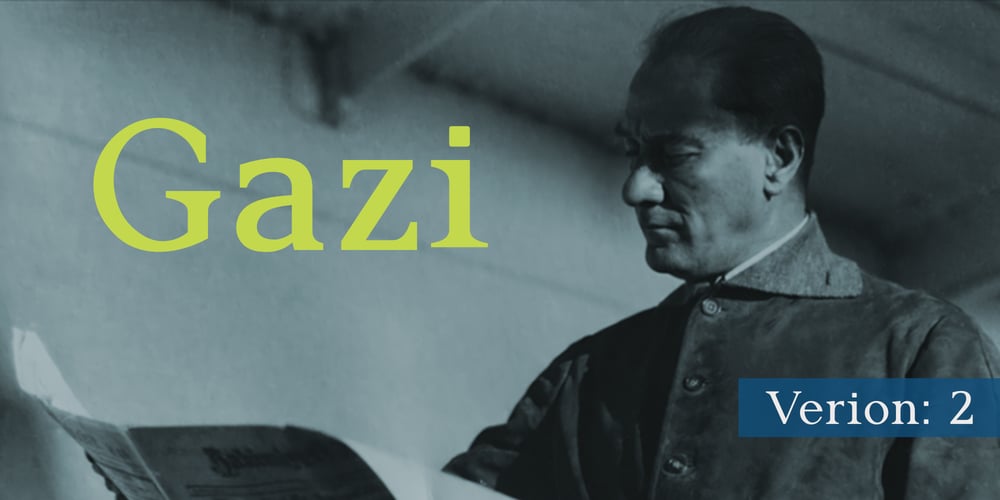
Gazi Font Family was designed by İsmail AYDIN and published by Fontuma. Gazi contains 60 styles and family package options. Gazi TypefaceGazi is a title given by the state to commanders who defeated the enemy by showing extraordinary benefits. This title was first given to Mustafa Kemal Atatürk by the Turkish Grand National Assembly on September 19, 1921. Gazi font was designed as a tribute to Mustafa Kemal Atatürk, who founded Turkey Republic.Gazi font, which is serif, contains all the accents of the Latin alphabet. Additionally, do to the sixty styles it contains, this font family serves many different design purposes. In terms of weights, Gazi font has Light, Regular, Medium, Semibold, Bold and Extrabold styles. All these weights also support Condensed, Narrow, Normal, Wide and Expanded styles from narrow to wide. Thus, Gazi font is a font family consisting of sixty fonts. Gazi font has received many innovations and improvements with the second version. The design of most letters on the font was renewed, thus giving the font a more stable and aesthetic structure. In addition, with the second version, the font gained new opentype features and existing opentype features were also improved. Opentype features added to Gazi font are as follows:● Slashed zero● Stylistic alternatives for the letters A, a, J, j and Q● Old style● Proportional● Tabular● Numerator● Denominator● Fraction/Alternate fraction● Ordinal (a-z)● Small capital● Small capital from capital● Petite capital from capitalUndoubtedly, one of the biggest works carried out regarding Gazi font is related to Small capital and Petite capital letters. Small capitals can be derived from both lowercase and uppercase letters, and most diacritics in the Latin alphabet are supported. Gazi font contains fonts that offer multi-purpose usage opportunities, especially in printed products, media, digital environments and in every field of writing. As Fontuma Foundry, we actually designed not this user-friendly font, but the happiness and comfort you will feel when pressing the keyboard keys.